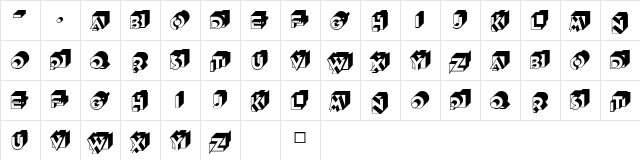
Knockout Initials
Style: Initials
Design Context for Knockout
Knockout is a composed and adaptable typeface that performs quietly and consistently across a wide range of design contexts.